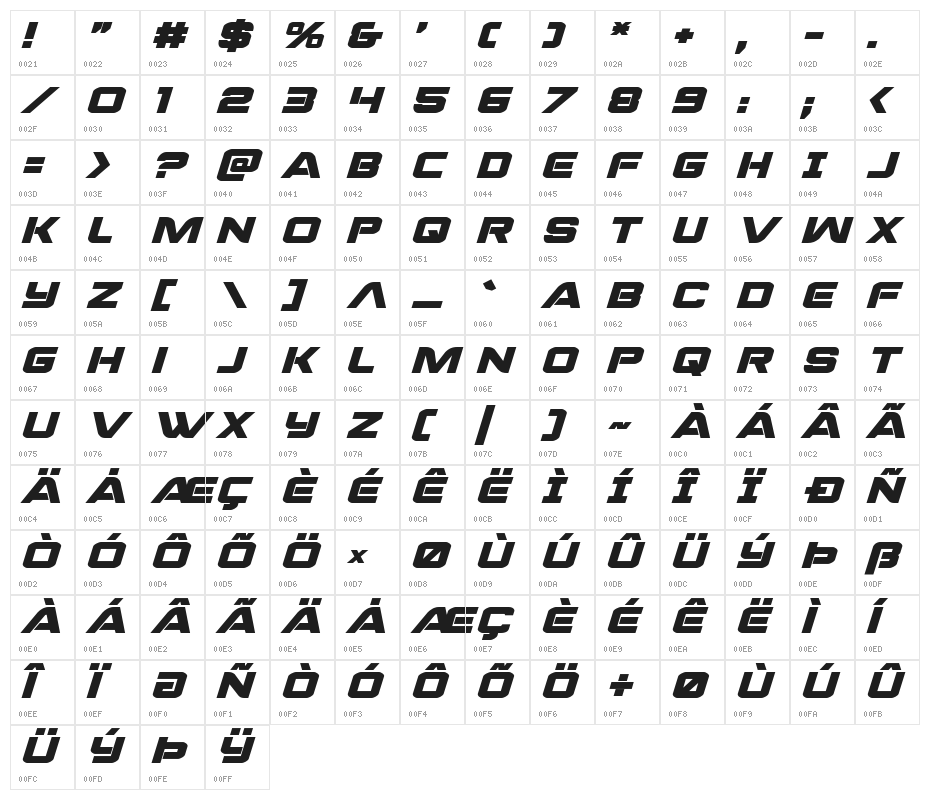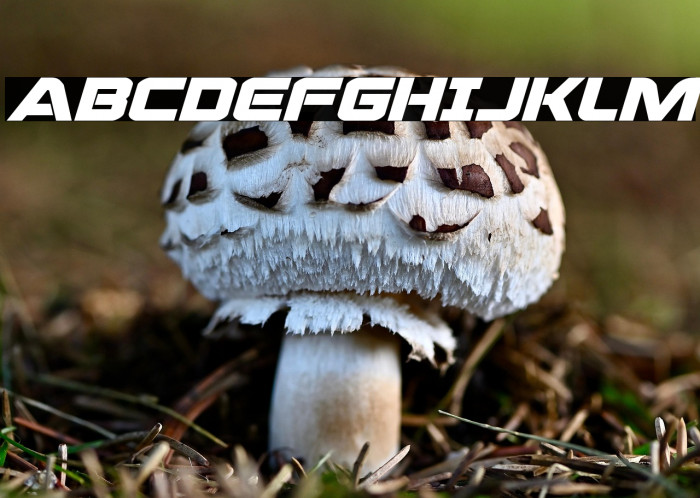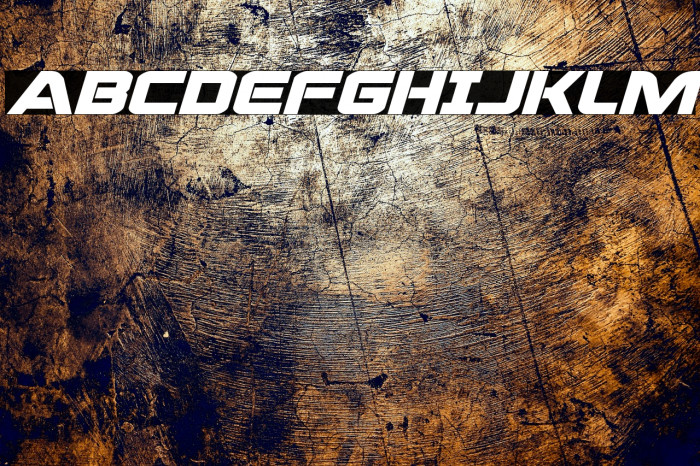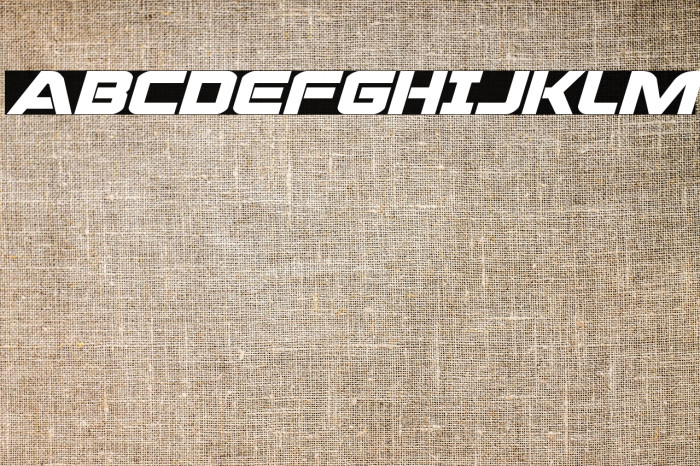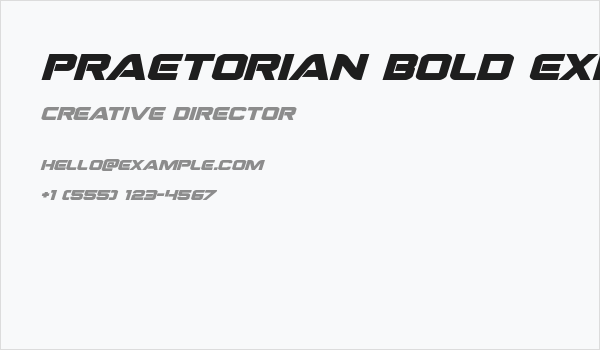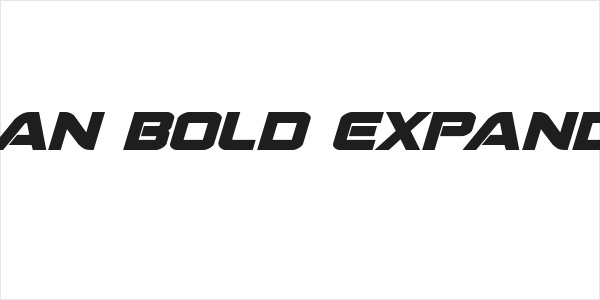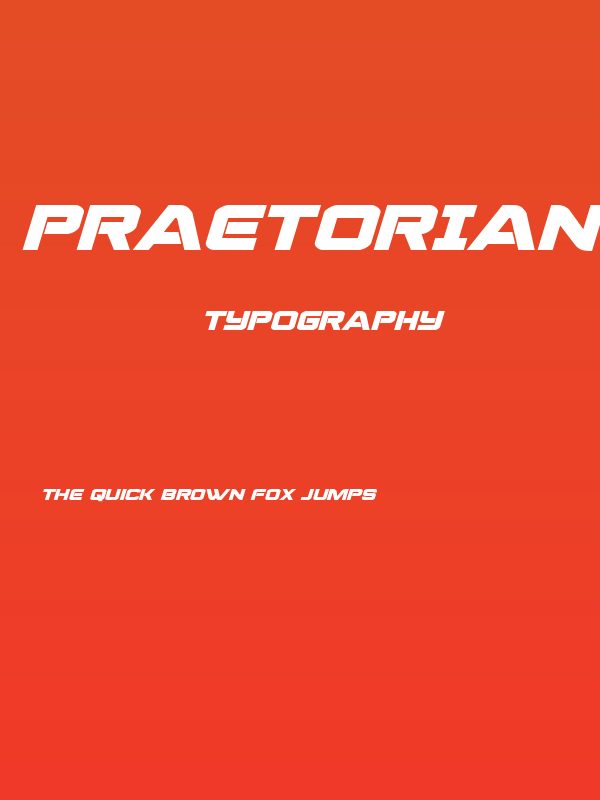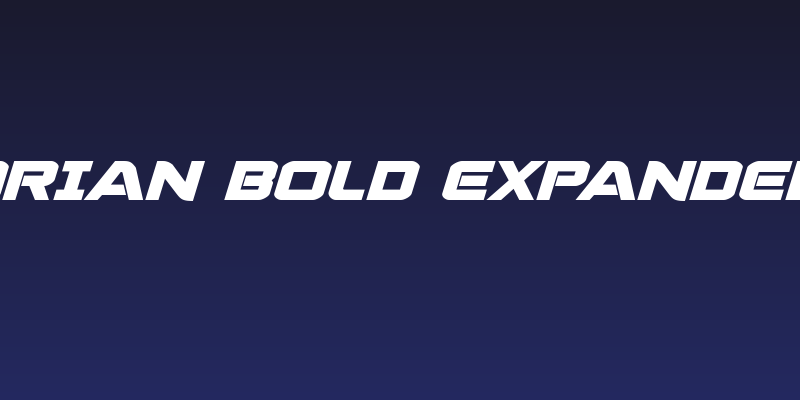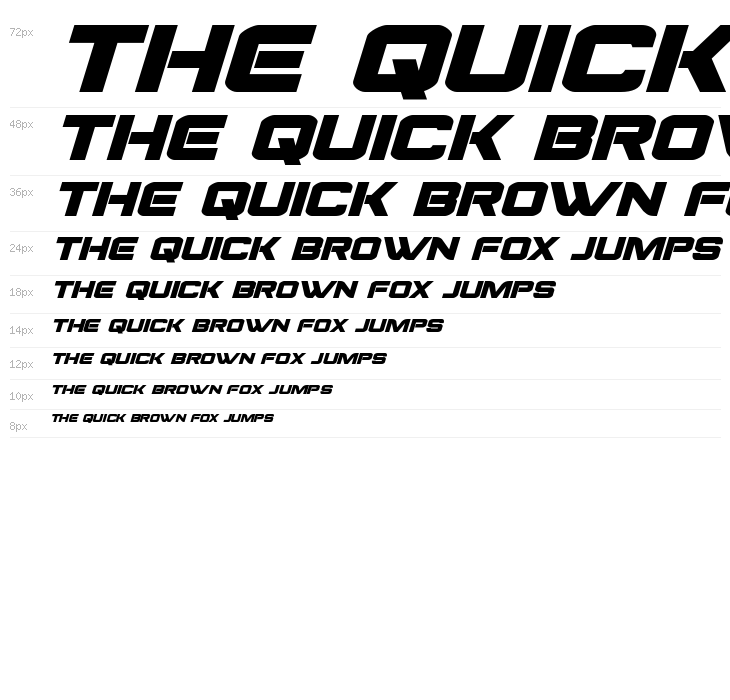
Praetorian Bold Expanded Italic Font
Praetorian Bold Expanded Italic Description
This font features a bold and dynamic design with an expanded and italicized style. The characters are sharply angled, giving a sense of motion and energy. The uppercase and lowercase letters maintain a consistent width, contributing to a cohesive appearance. The numbers are equally bold, ensuring readability and impact. Special characters are designed with the same boldness, making them stand out effectively. The overall look is modern and assertive, suitable for projects that require a strong visual presence.